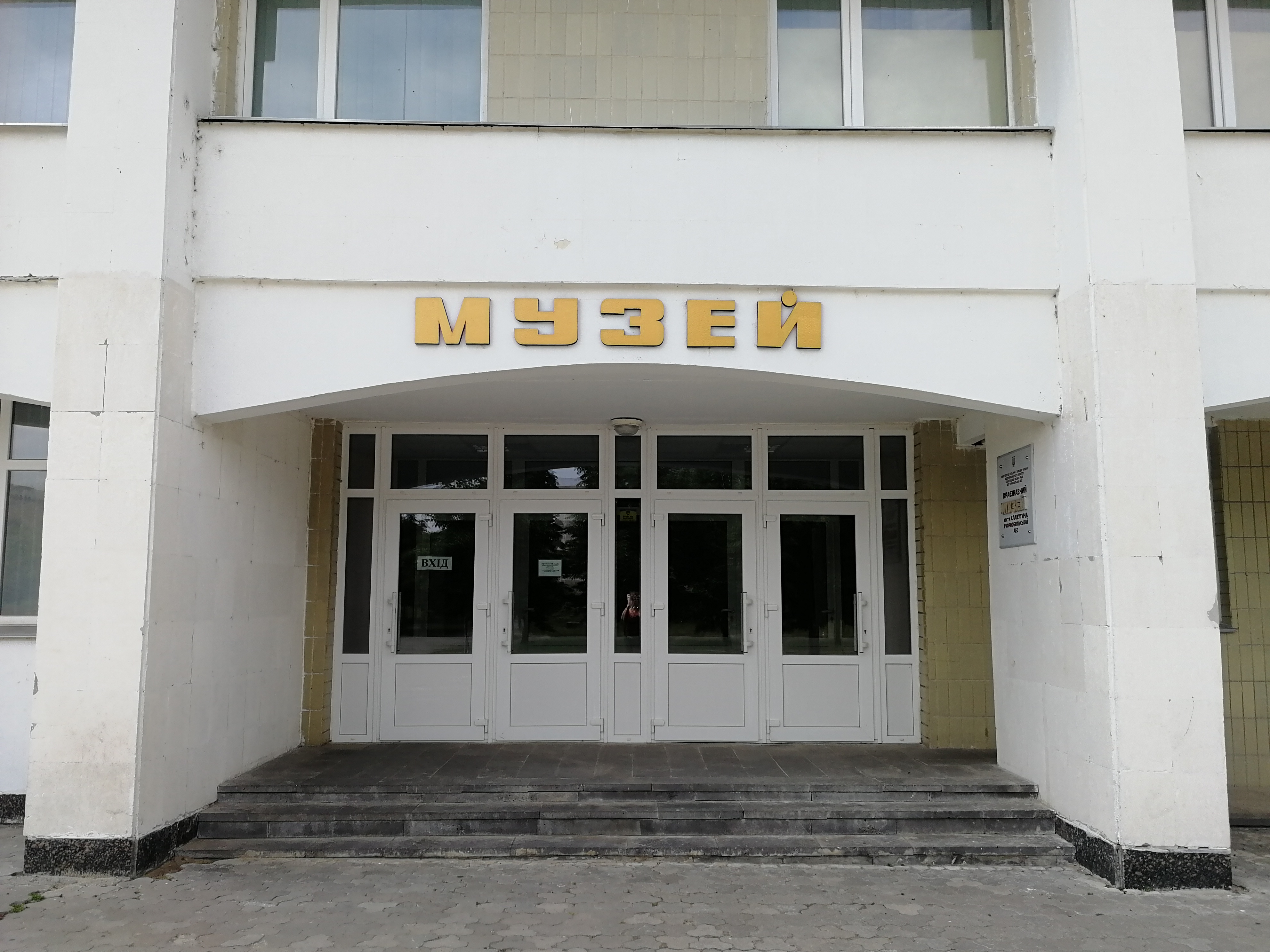
Name: Misto
Designer: Katerina Korolevtseva
Back Story: Graphic designer Katerina Korolevtseva designed Misto as a capstone project during her studies at the Projector School in Kiev, Ukraine. The typeface is an homage to her hometown of Slavutych, the newest city in Ukraine, built as a haven for the evacuated personnel of the Chernobyl Nuclear Power Plant disaster in 1986.
Slavutych was designed as a contemporary utopia, filled with low scale, five-story houses, unique postmodernist architecture, and tall pine trees. It’s quiet and green, and boasts amenities such as a youth center, numerous sports facilities, and a hotel. Its citizens have a uniquely high birth rate as well as surprisingly low mortality numbers. “I wanted people to know about Slavutych and to make my small contribution to the development of Cyrillic fonts,” says Korolevtseva.
Why’s it called Misto? “Misto” means “city” in Ukrainian.
What are its distinguishing characteristics? Misto is an inspired take on reverse contrast fonts, which are having a bit of a revival at the moment. Its squat, expansive letterforms draw inspiration from the shapes of the low, wide buildings in Slavutych, which incorporate architectural styles from eight regions of the former Soviet Union.
There’s also something youthful and exuberant about both the Latin and Cyrillic characters’ playful rhythm of diacritical marks and occasional ball terminals contrasted with low oblong counters and decisive thick-and-thin strokes. Korolevtseva says she designed the font to reflect the young character of her native town, where the average age is by far the lowest of any city in Ukraine: more than one-third of its inhabitants are under the age of 18.
Also of note is the harmony between the letterforms of the two languages—not an easy task, yet beautifully executed. The designer pulled off a hat trick with Misto, especially given that she spent only a month and a half on its development.
What should I use it for? As a display font, Misto will conquer headlines, logo design, brand identities, websites, packaging, and posters.
What other typefaces do you like to pair it with? This font shines when paired with contemporary grotesques. “I like especially like how how it looks with Agrandir by Alex Slobzheninov,” says Korolevtseva. Or try Founders Grotesque from New Zealand’s Klim Type Foundry.